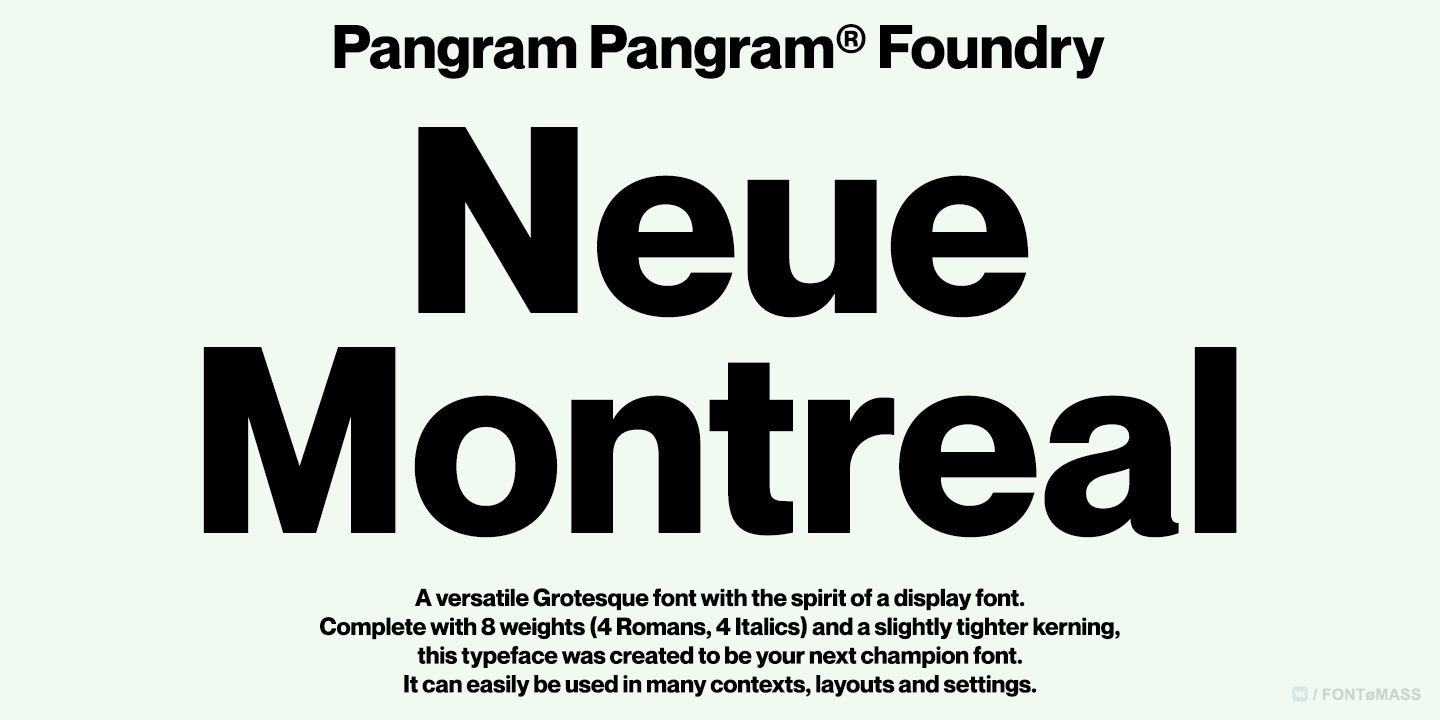
Neue Montreal Font
Neue Montreal Font is perfect for contemporary brand identity, modern tech companies, minimalist design projects, urban architecture firms, progressive startups, clean editorial layouts, sophisticated websites, cultural institutions, design studios, and forward-thinking corporate communications.
Neue Montreal Font is exciting because it represents the perfect evolution of modernist typography, combining Swiss design precision with contemporary urban sophistication to create a typeface that speaks to today's progressive design sensibilities. This font brings metropolitan elegance and cutting-edge clarity to any project, making it ideal for brands and organizations that value innovation, cultural sophistication, and design excellence. Its refined geometry and urban character create an atmosphere of contemporary intelligence and cosmopolitan appeal.
Neue Montreal Font family includes thin, light, regular, medium, bold, and black weights, each available in roman and italic styles with extensive language support, providing designers with comprehensive typographic flexibility for complex international brand systems and multi-platform applications.
This exceptional neo-grotesque typeface merges classical Swiss typography principles with contemporary urban aesthetics, making Neue Montreal Font Free Download a premium choice for sophisticated design applications. The font's meticulously engineered letterforms feature subtle optical refinements and balanced proportions that ensure exceptional performance across all sizes while maintaining the crisp clarity essential for modern communication.
Whether you're developing progressive brand identity, designing cultural publications, or creating sophisticated digital interfaces, Neue Montreal Font delivers outstanding versatility and metropolitan sophistication. The font excels particularly in applications requiring both visual impact and sustained readability, making it ideal for comprehensive brand systems.
Design professionals choose Neue Montreal Font for its ability to project intelligence and cultural sophistication while providing the reliability needed for complex typographic hierarchies. The font's contemporary character makes it the preferred choice for design agencies, cultural institutions, and progressive companies.
Each character demonstrates masterful attention to geometric harmony and optical balance, featuring the refined precision and urban sophistication that defines contemporary metropolitan design excellence.